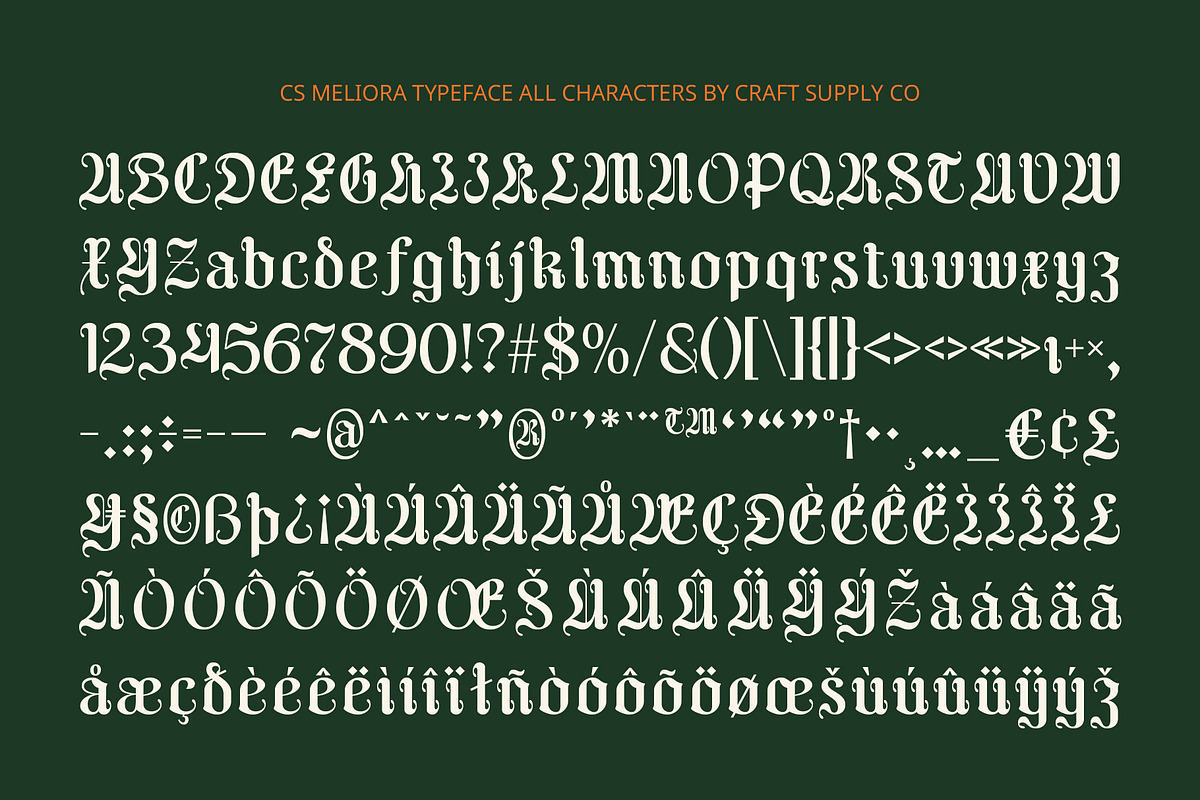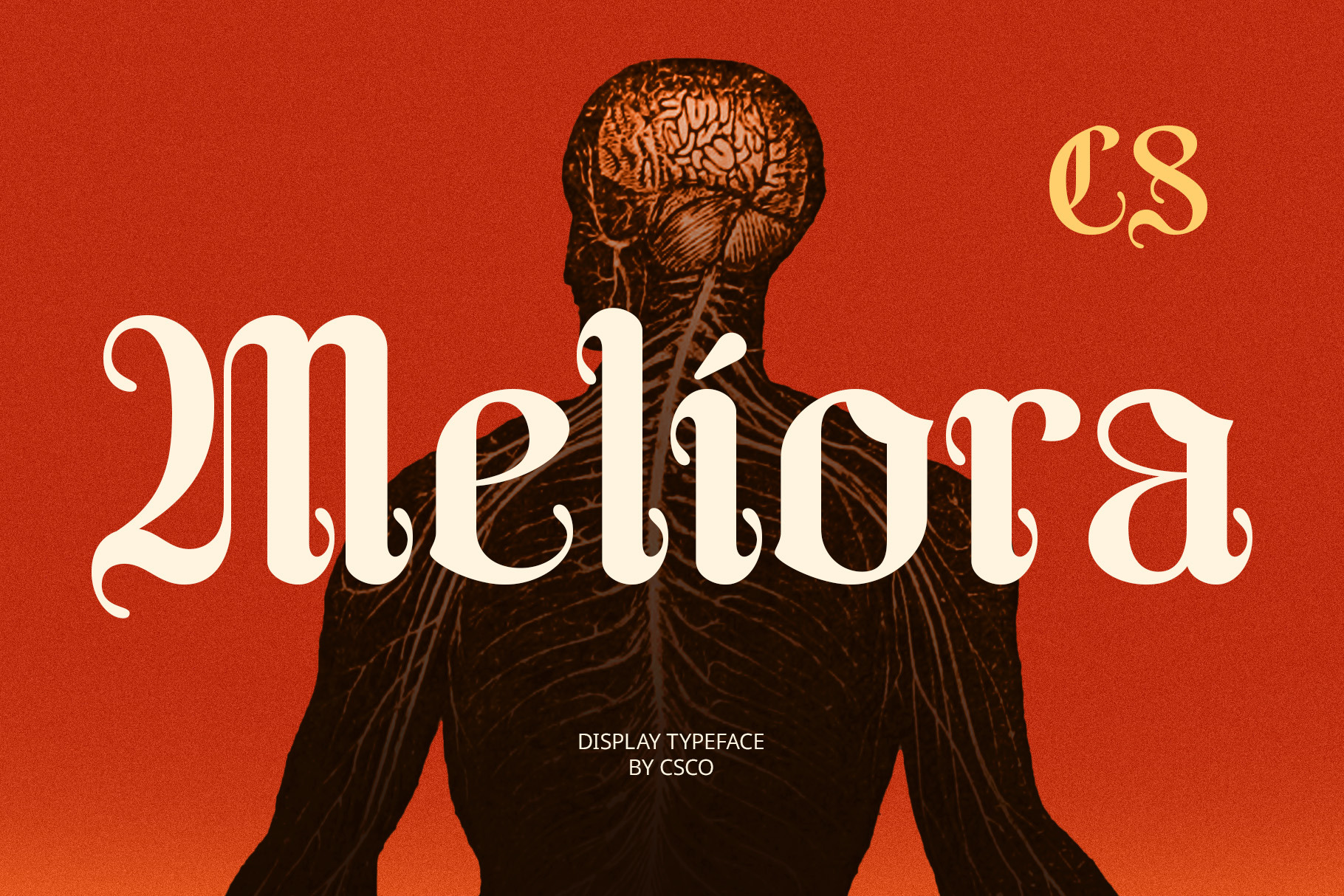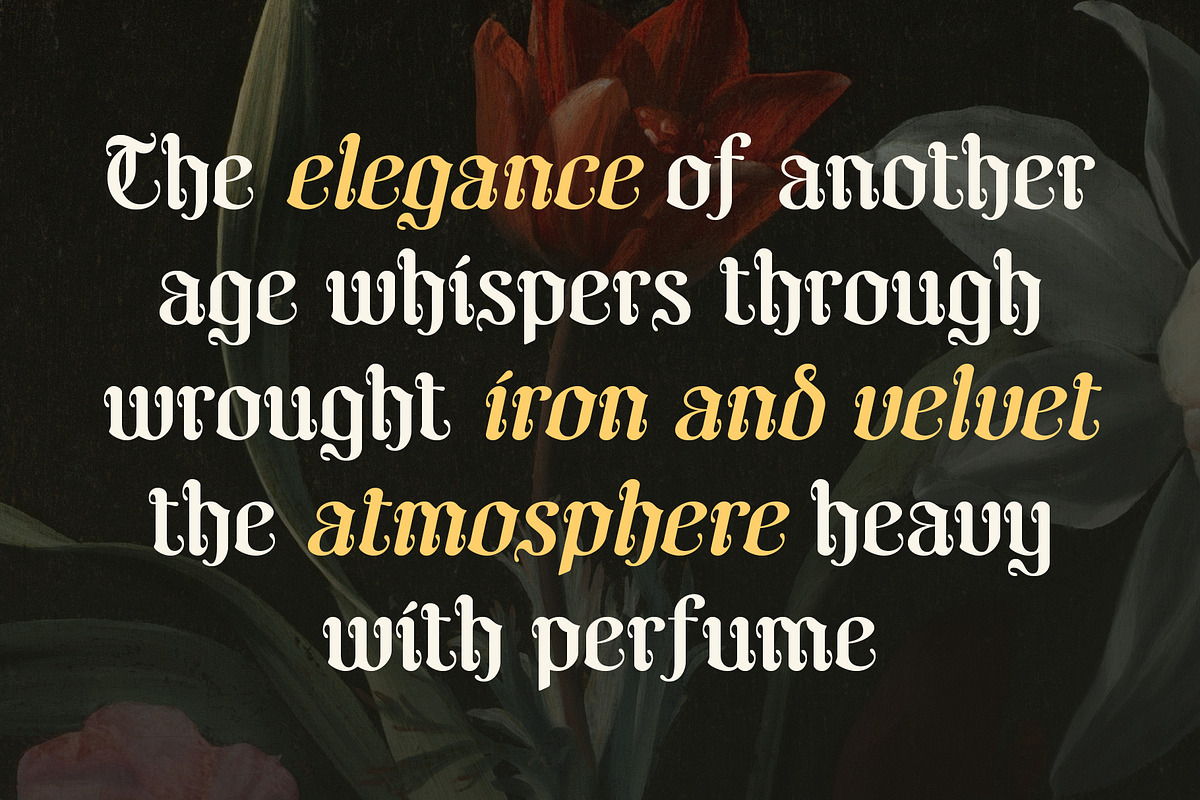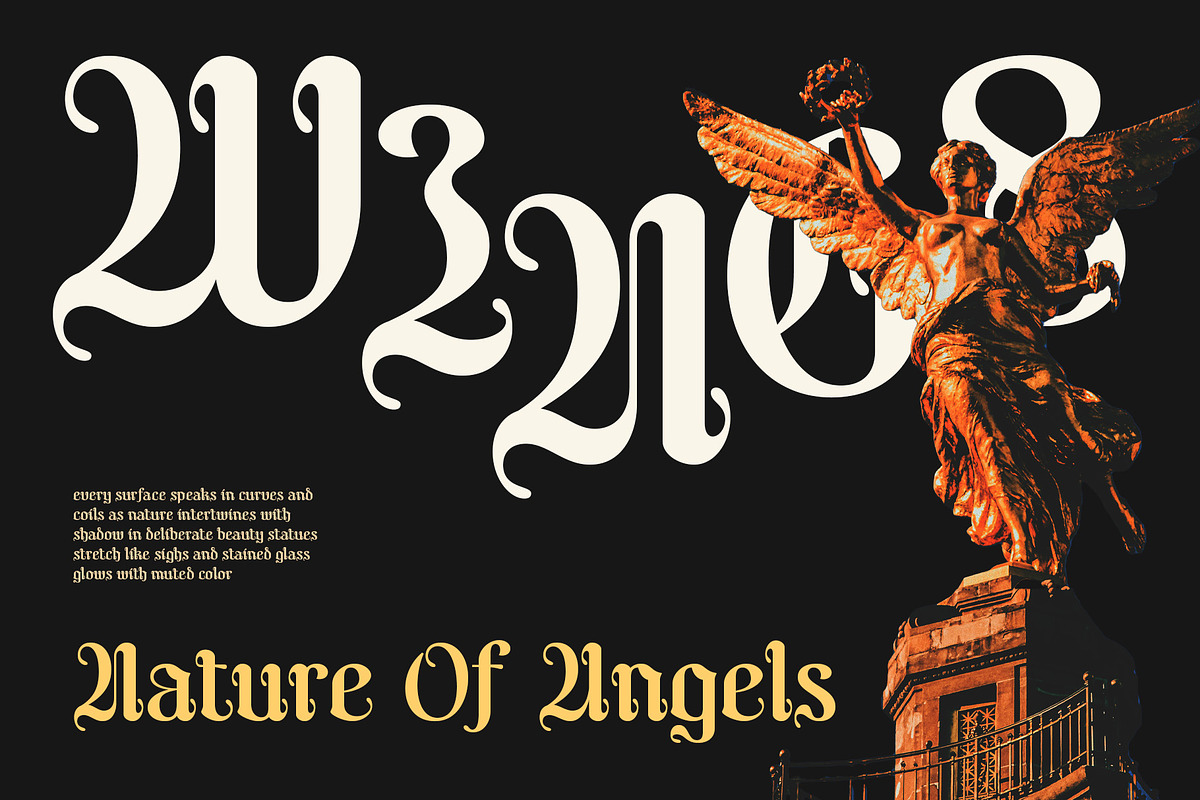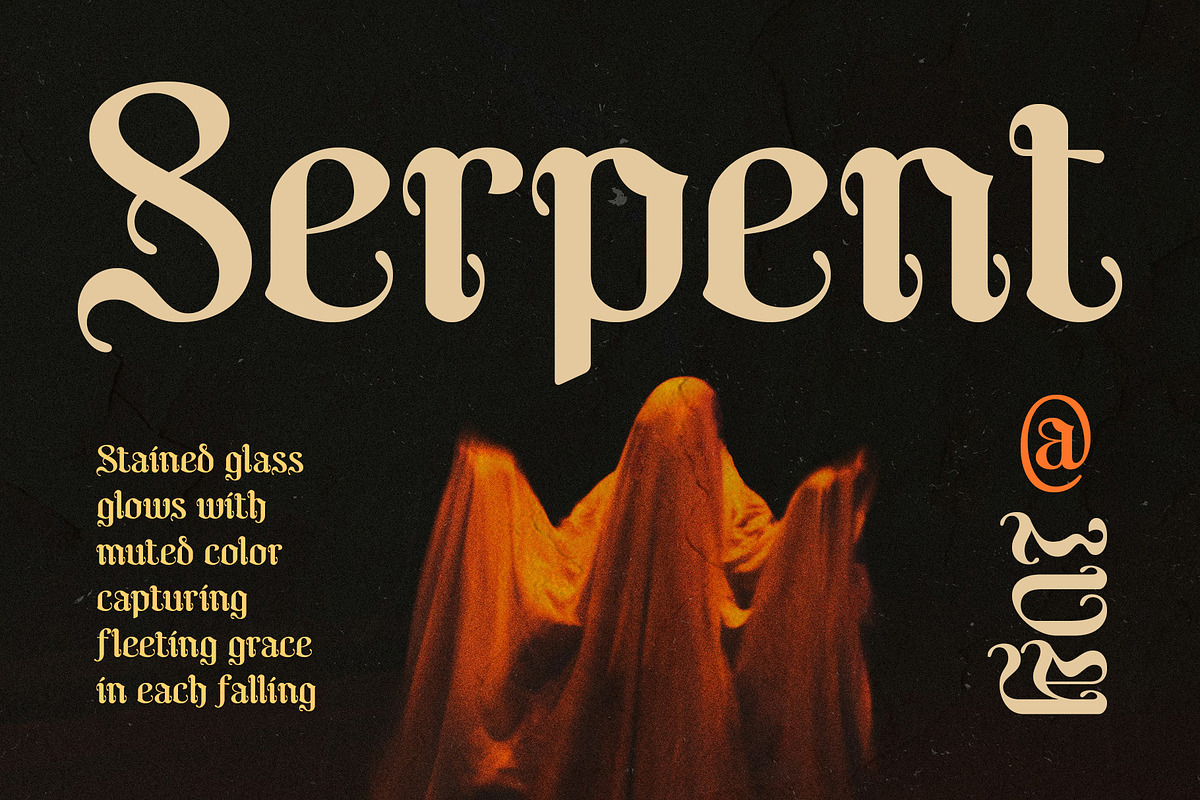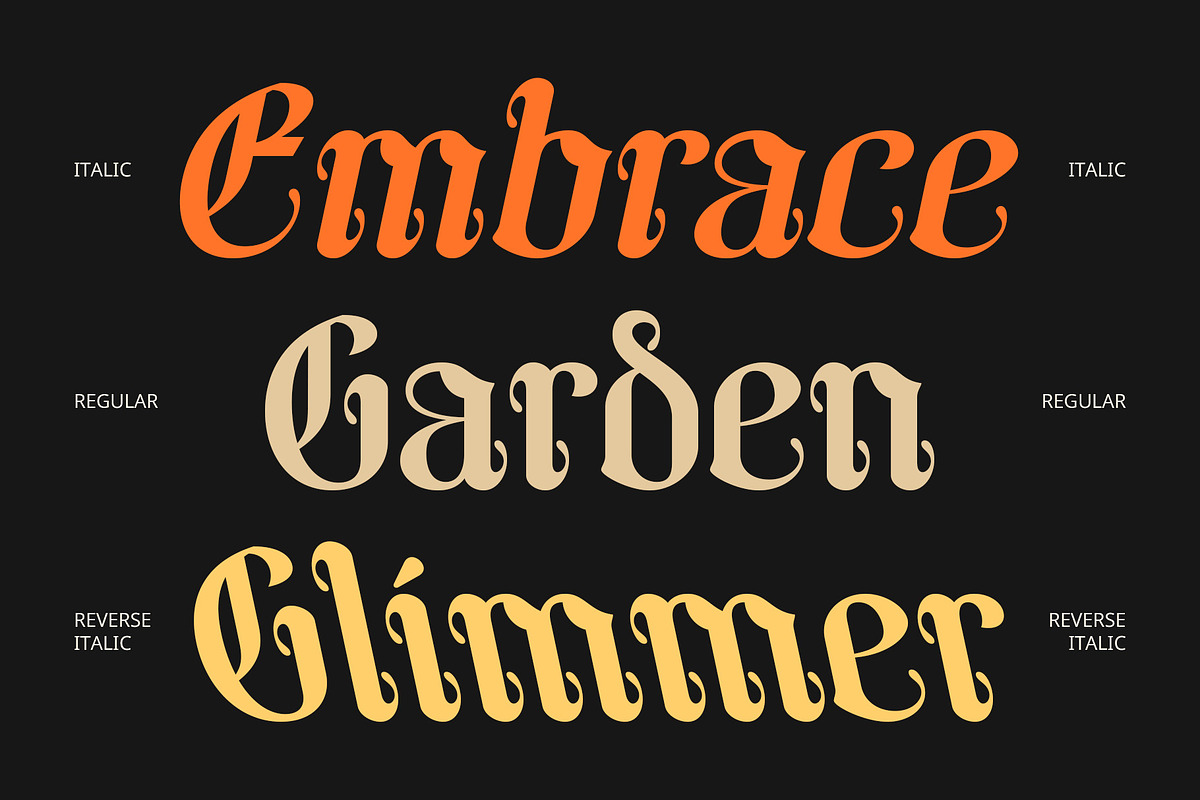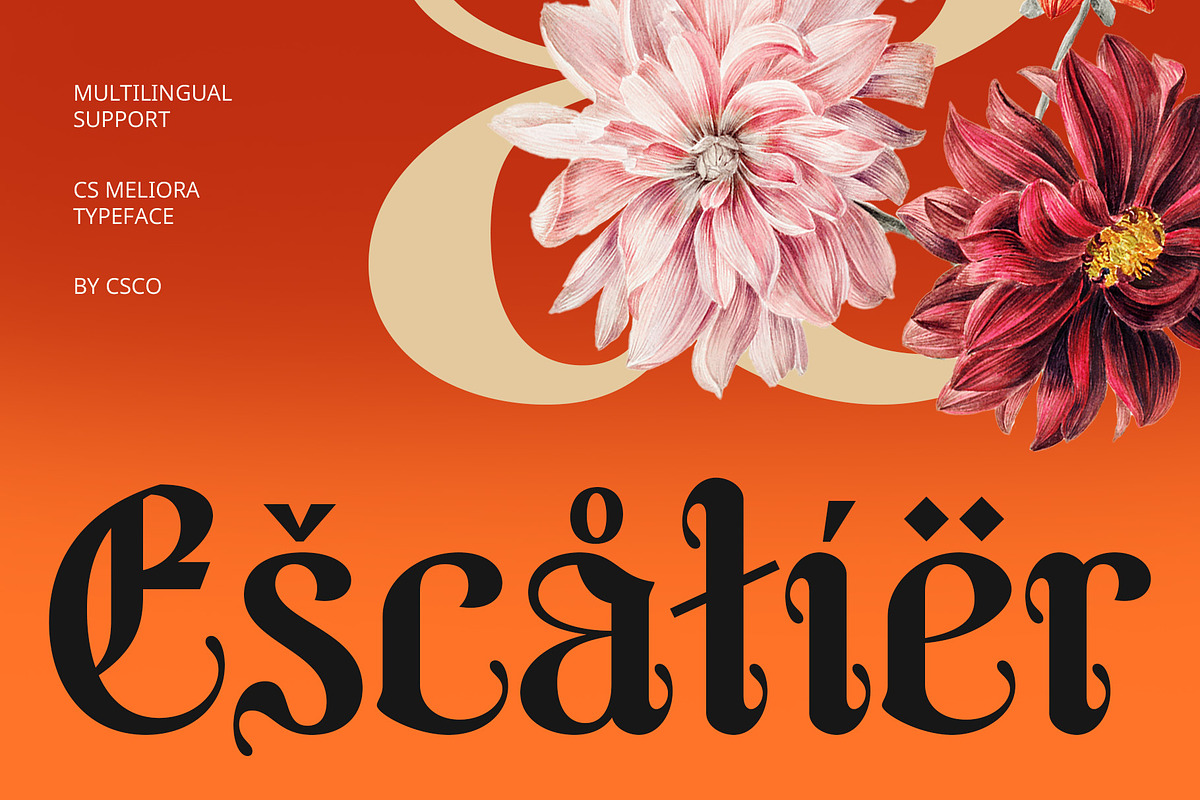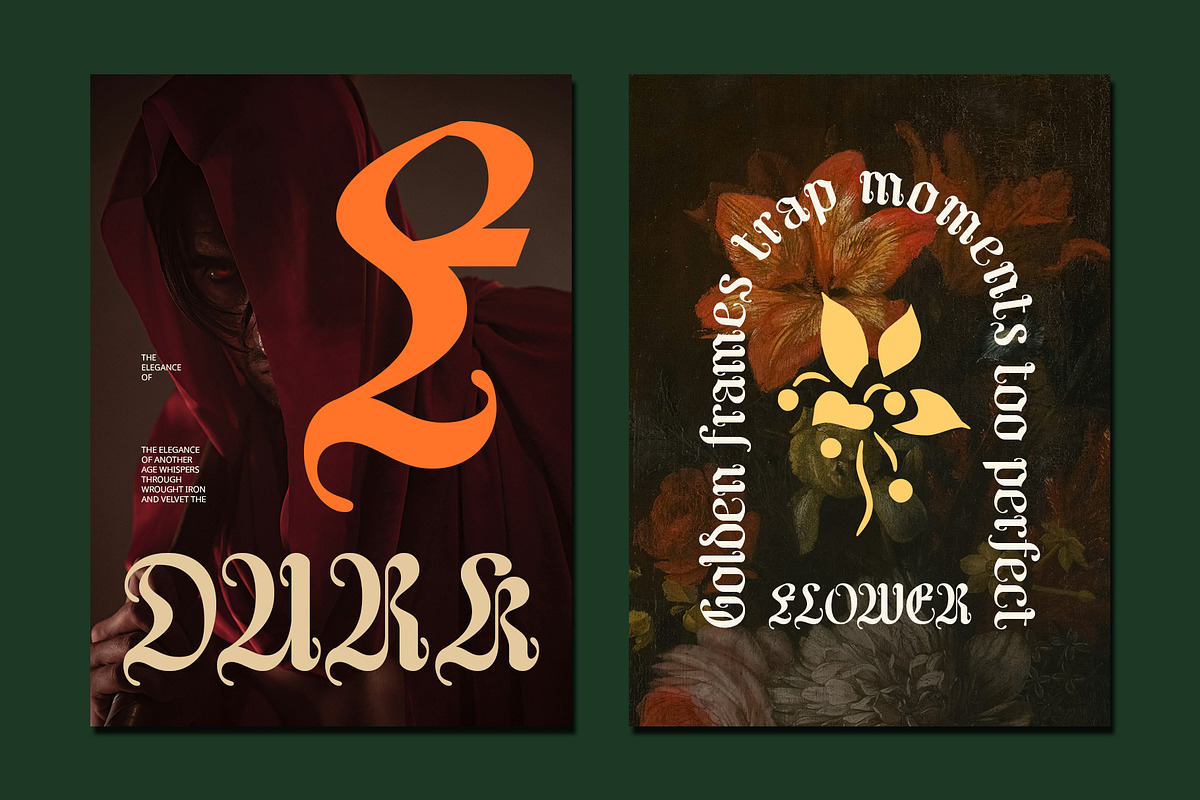
CS Meliora – Blackletter Font
CS Meliora – Modern Blackletter Display Font
Bold Tradition Meets Contemporary Edge CS Meliora is a display font that reimagines the traditional blackletter style with a modern and refined approach. While staying true to its Gothic roots, it features bold, angular strokes and ornamental flair, balanced with cleaner contours and a streamlined structure—making it more accessible for modern design contexts.
Dramatic, Stylish, and Commanding With its strong contrast and architectural letterforms, CS Meliora adds a dramatic presence to any design. It’s a perfect choice for music branding, poster designs, logotypes, and editorial headlines that need to convey intensity, creativity, and distinct identity. The font exudes confidence and artistry, combining heritage with bold, visual modernism.
Classic Yet Forward-Looking By softening the density of traditional blackletter and infusing it with a minimalist edge, CS Meliora bridges the gap between historical elegance and contemporary relevance. It provides designers with a versatile tool for crafting statements that are both visually rich and unmistakably bold.
Perfect for Posters, Music, and Creative Branding Whether used in music branding, editorial layouts, or eye-catching packaging, CS Meliora brings a distinctive, rebellious flair. It’s ideal for projects seeking a dramatic, artistic tone with a touch of historical depth and modern boldness.
- CS Meliora Regular
- CS Meliora Italic
- CS Meliora Reverse Italic